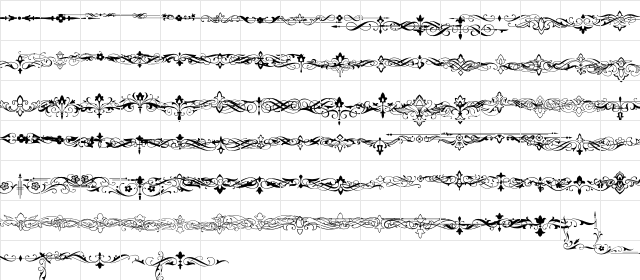
NatVignetteTwo Regular
Design Context for NatVignetteTwo Typeface
NatVignetteTwo is a composed and adaptable typeface that performs quietly and consistently across a wide range of design contexts.